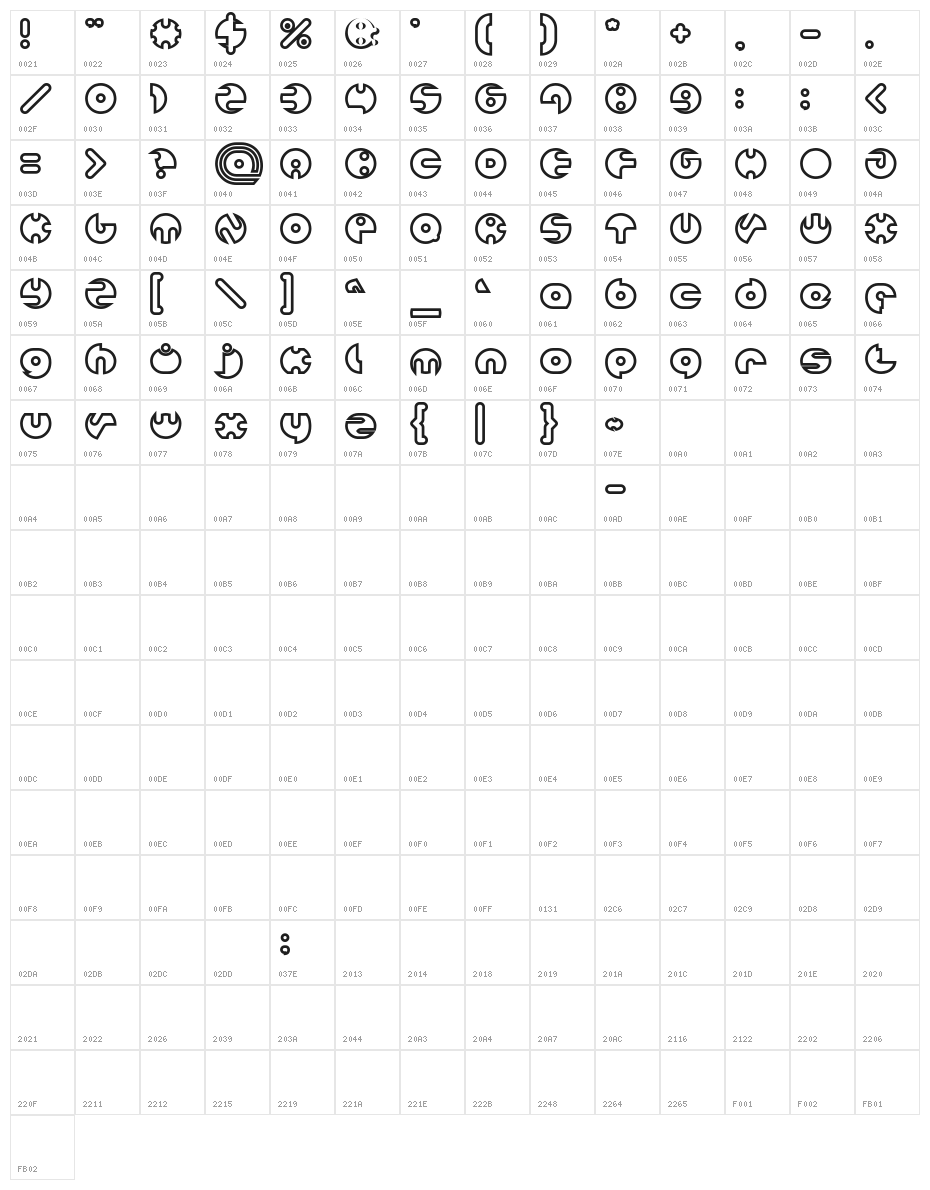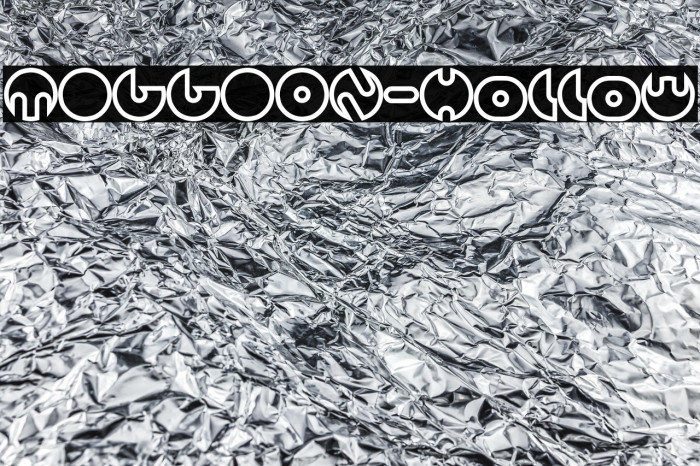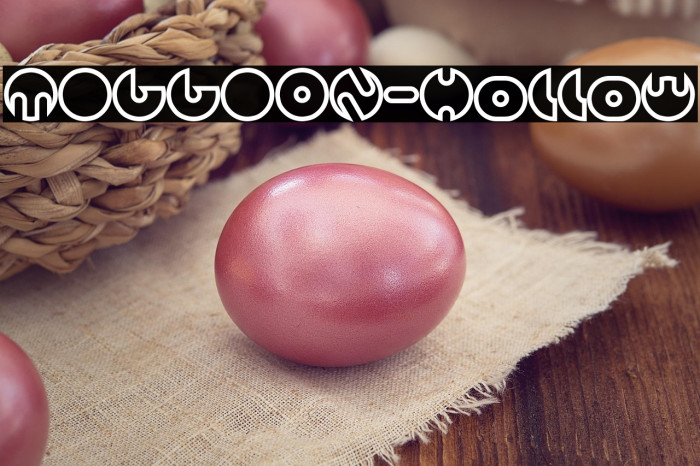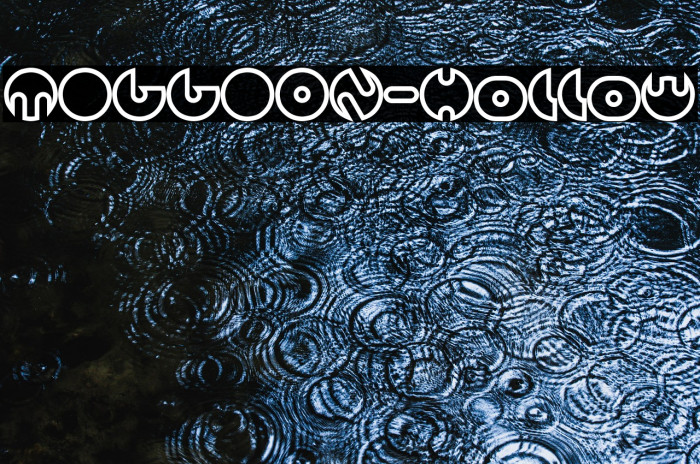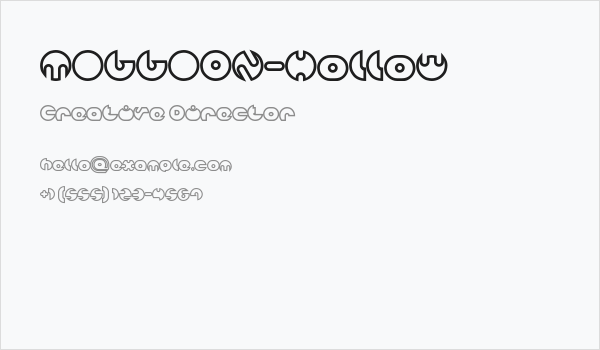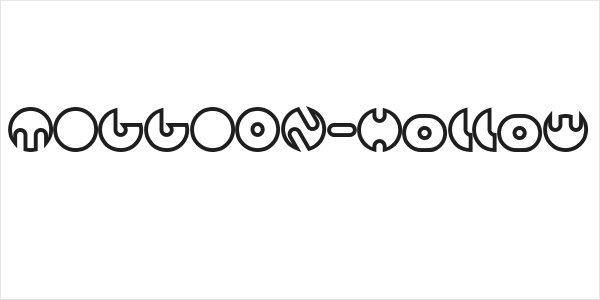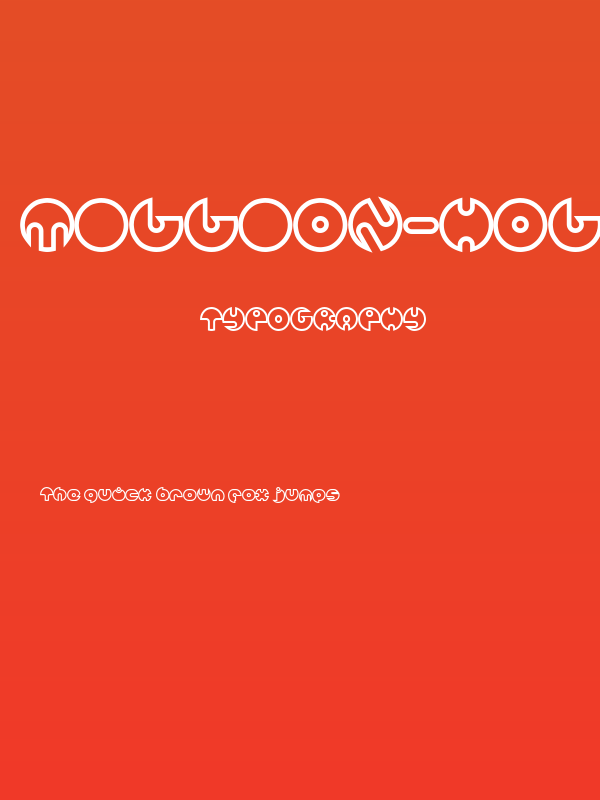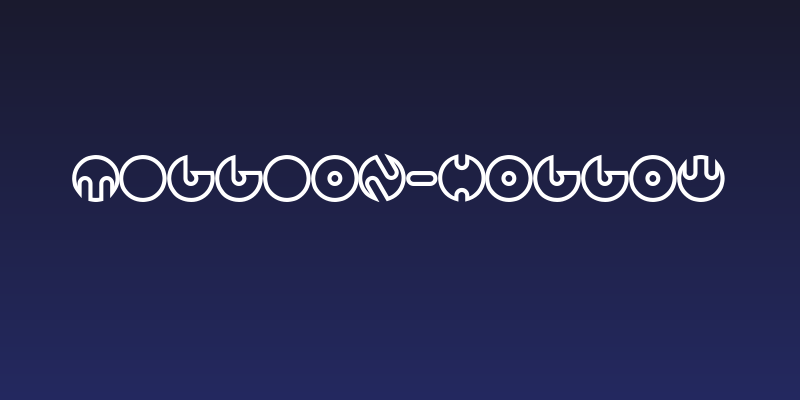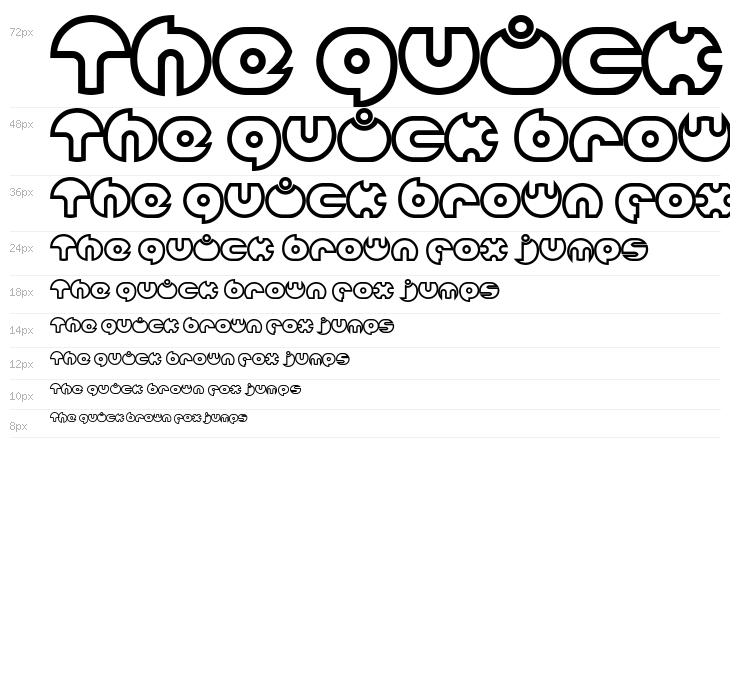
MILLION-Hollow Font
MILLION-Hollow Description
This font features a unique hollow design with a futuristic and geometric aesthetic. Each character is crafted with bold outlines and circular cutouts, creating a striking visual effect. The uppercase and lowercase letters maintain a consistent style, with rounded edges and symmetrical shapes. Numbers and special characters follow the same design principles, ensuring uniformity across all elements. The font's distinct appearance makes it ideal for creative projects that require a modern and eye-catching typeface.
| Proposed Projects | Ideal for sci-fi themed designs, modern branding, digital art, and innovative advertising campaigns. |